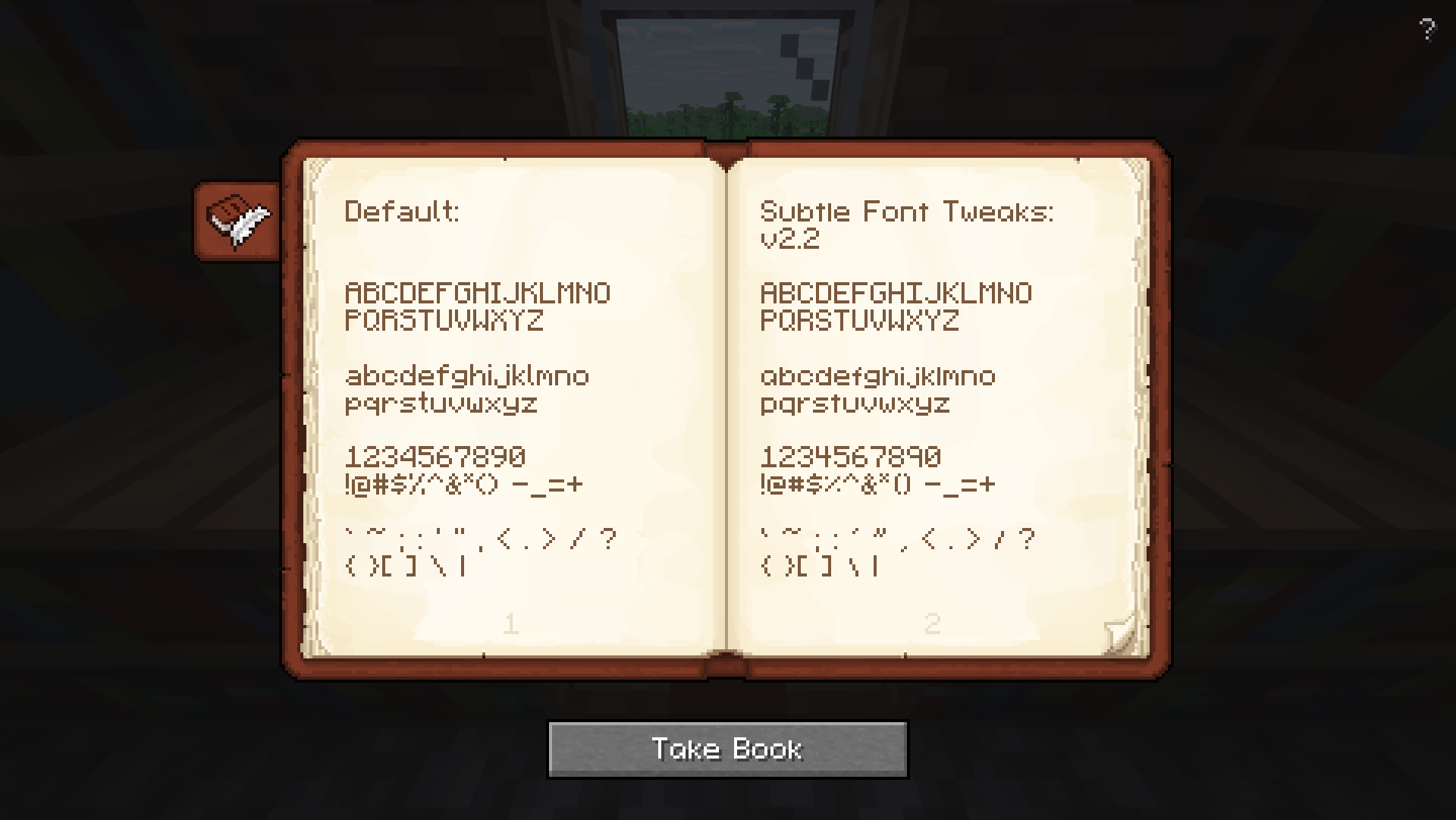
Subtle Font Tweaks
Are you tired of the default Minecraft font but not looking for something completely different? This font pack adds small changes to the default font we've all been looking at for years.
- Centered Capitals: No more off-balance upper-case letters.
- Rounder, Smaller Lowercase: Lower case got a height adjustment are got their own minor tweaks
- Subtle Adjustments: ☆ Other small things ☆
Whether you’re looking for a minor refresh or something new, this font pack is for those who enjoy subtle vanilla changes.